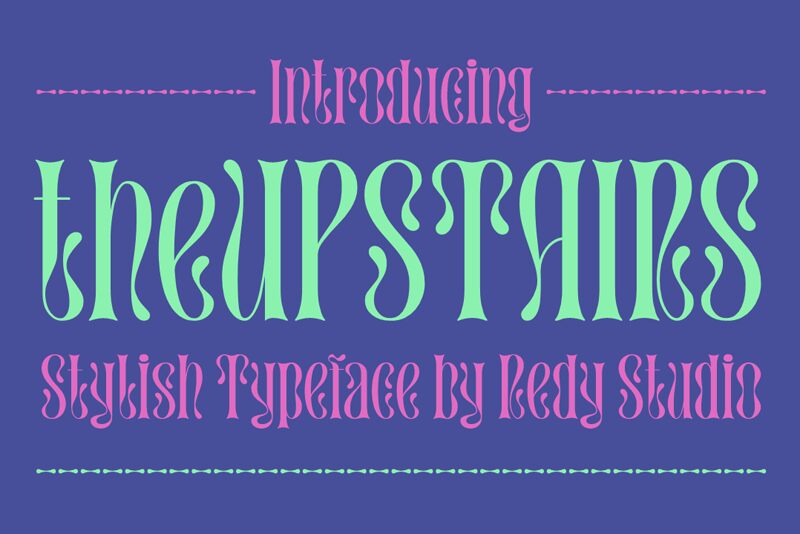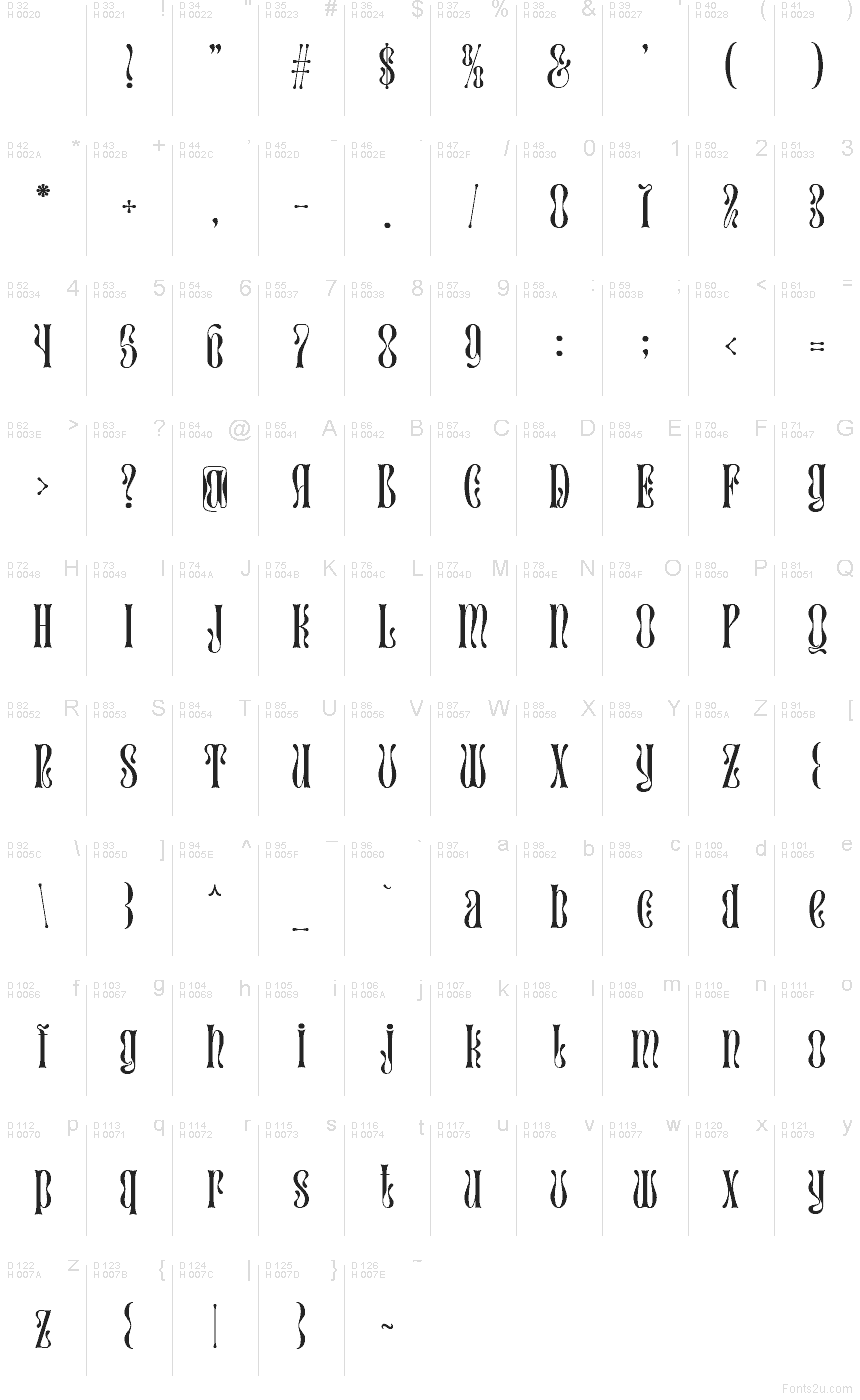
the Upstairs Demo
The Upstairs font by Redy Studio is a free retro display typeface that feels like a tall, elegant poster from the late ‘60s. Its letters stretch upward in slim, elongated columns, then flare into inky teardrop curves that feel both ornamental and slightly psychedelic. The rhythm is tight and vertical, so even a single word looks like a custom logotype, with a moody, boutique energy that’s hard to fake.
Using The Upstairs font, you can bring that dreamy, vintage-theatre vibe to album covers, art prints, café menus, cosmetics packaging, posters, and brand marks for fashion or lifestyle projects. This free font shines at large sizes where its sculpted curves and quirky proportions can breathe. Pair it with a clean, neutral sans-serif for body text and let The Upstairs handle the headlines, wordmarks, and short phrases that need to feel special.